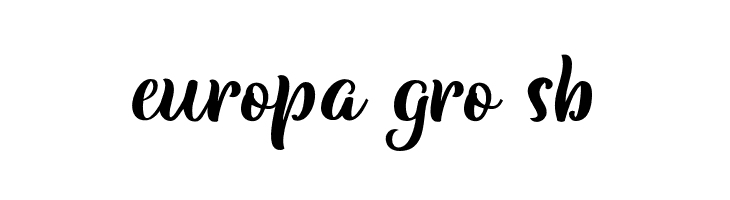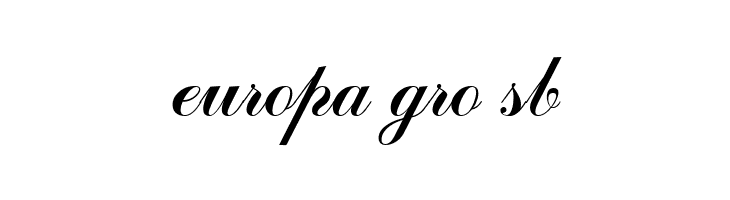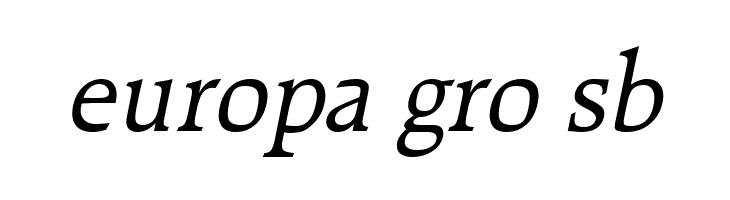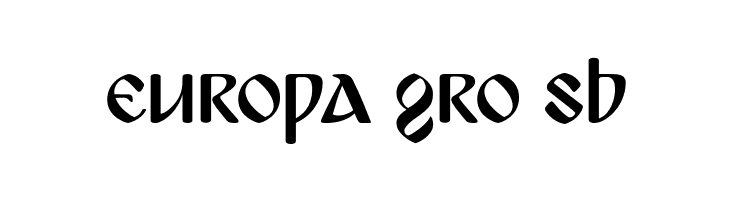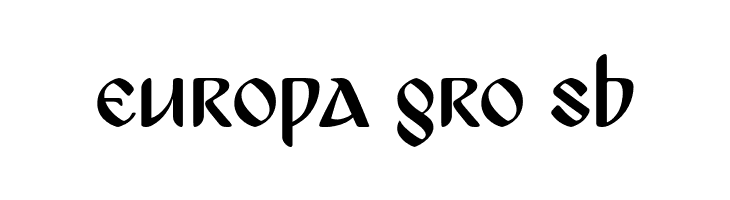
BulgariaModernaV3 Font
Font by
alphadesigner
A bold, artistic font with geometric and organic elements, featuring high contrast strokes.
VAL Stencil Font
A bold, geometric stencil font with rounded shapes and strategic breaks.
Bulgarian Kursiv Font
An elegant script font with flowing cursive strokes and high contrast.
VAL Font
Font by www.Fontfabric.com
A bold, rounded, and playful font with a modern, chunky style.
Bulgarian Garamond Font
A classic serif font with elegant strokes and balanced proportions.
Bulgarian Courier Font
A monospaced font with a clean, classic design and slight serif details.
Bulgarian Garamond Italic Font
A classic, elegant serif font with italicized characters and refined serifs.
Bulgarian Palatia Font
A refined serif font with elegant lines and subtle contrast, ideal for formal and creative uses.
Bulgaria Font
A playful and dynamic script font with a handwritten feel.
Quad-Ultra Font
Font by www.Fontfabric.com
A bold, geometric font with a 3D effect and modern, decorative style.
Quad-Light Font
Font by www.Fontfabric.com
A geometric, three-dimensional font with a block-like, architectural design.
Bulgarian Italic Font
An elegant italic serif font with moderate contrast and refined serifs.
Quad-Black Font
Font by www.Fontfabric.com
A bold, geometric font with a futuristic and industrial aesthetic.
VALStencil Font
Font by www.Fontfabric.com
A bold, geometric stencil font with rounded shapes and strategic cutouts.
BulgariaScript Font
A lively script font with elegant, flowing cursive strokes.
BulgariaModernaPro Font
alphadesigner - Yanko Tsvetkov - alphadesigner.com
A bold, modern font with high contrast and expressive strokes.